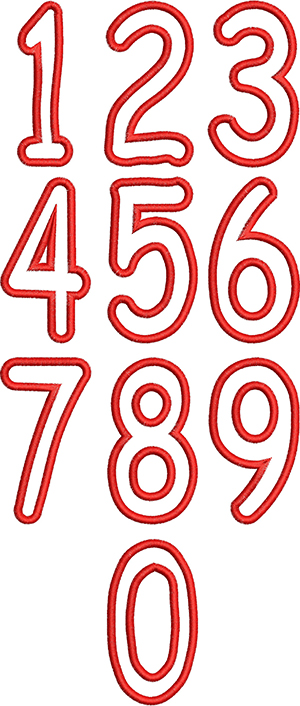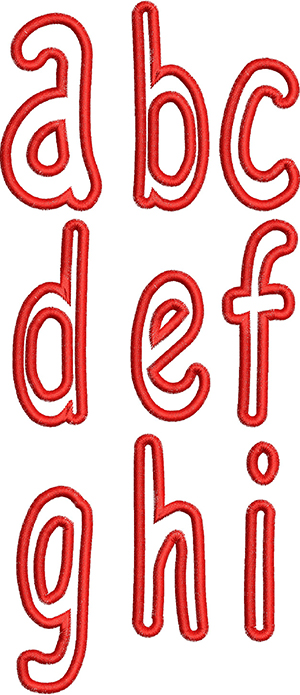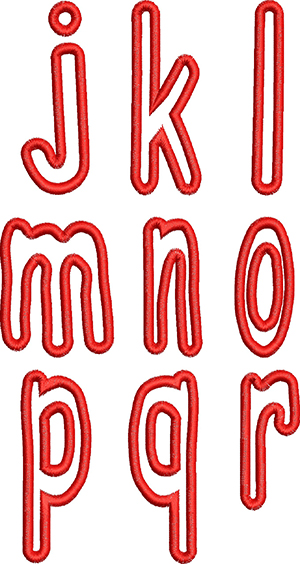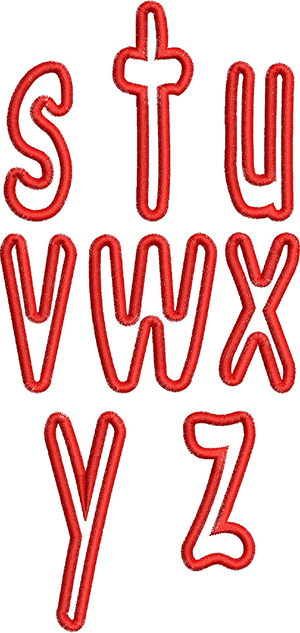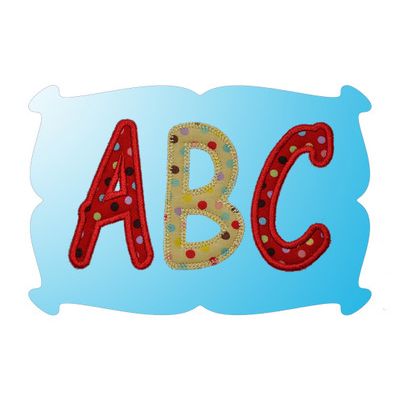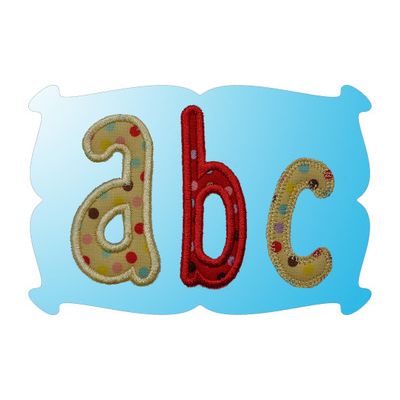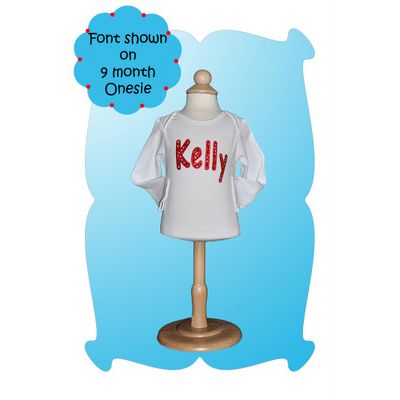
Kelly Satin Stitch Applique Embroidery Font
Kelly Applique Font
...a great font for boys and girls.
2 styles of finishing stitches: satin, zig zag
Capital letters A thru Z. Lower case letters a thru z. Numbers 0-9.
This is the perfect font for those name shirts and pilows that are so popular.
It's skinnier than most fonts, which will allow you to create many names without all of that re-hooping.
Two styles of finishing stitches are included:
traditional satin stitch and quick and easy zig zag.
Lower case letters a thru z, in 3 sizes: to coordinate with the upper case letters.
Numbers 0-9, in 3 sizes: 3, 4 and 5 inch.